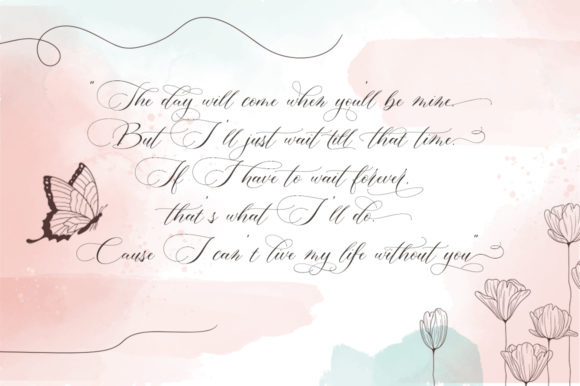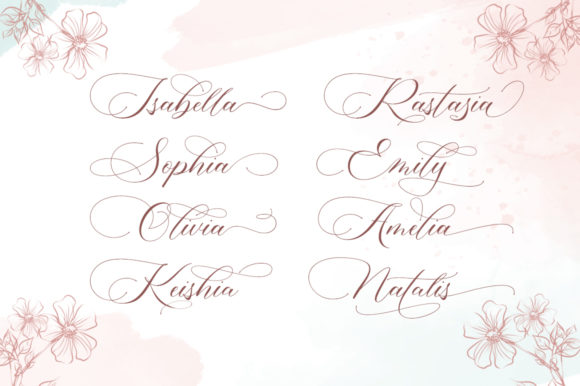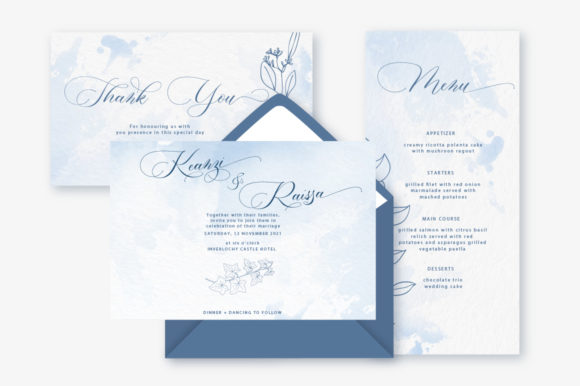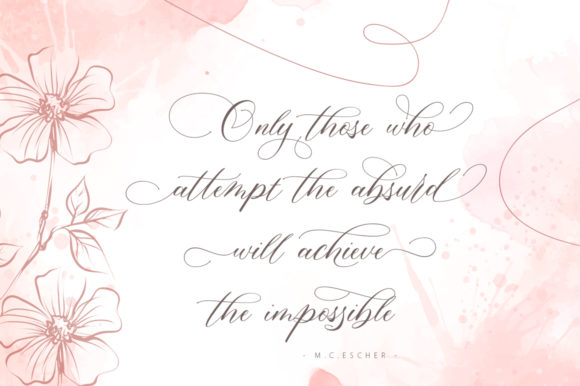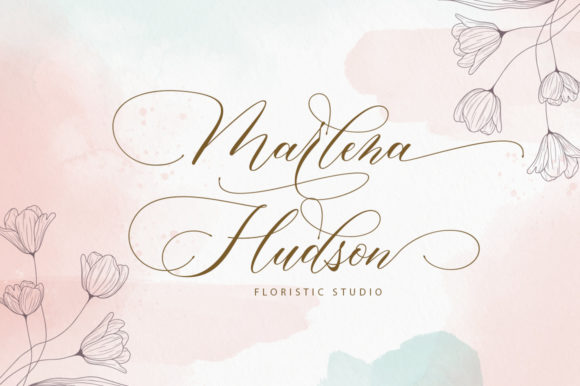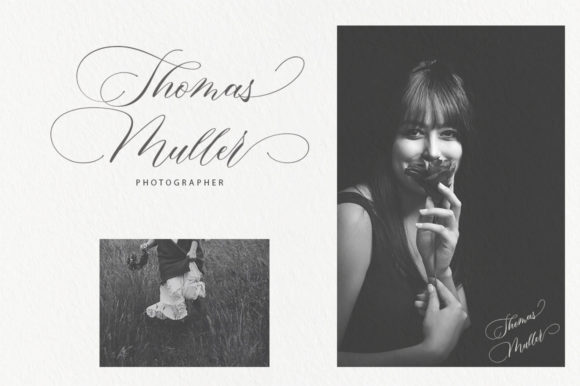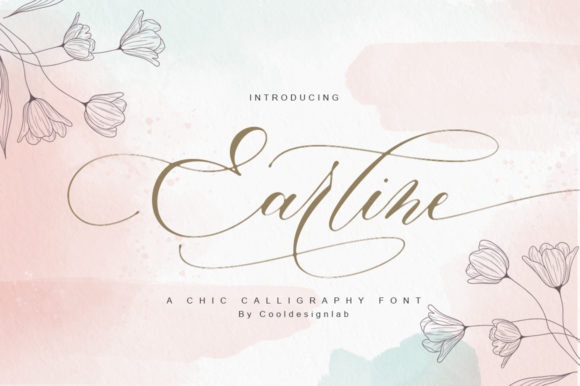
Discover the Elegance of Earline Font: A Delicate Handwritten Masterpiece
Are you a designer or crafter looking for a font that exudes elegance and sophistication? Look no further than Earline Font, a delicate and handwritten font that is sure to capture your heart. With its distinct and well-rounded letters, Earline is a masterpiece that can elevate your designs to new heights. In this article, we’ll explore the features and benefits of Earline Font, and how you can use it to create spectacular designs.
The Unique Characteristics of Earline Font
Earline Font is a handwritten font that boasts a unique and elegant style. Its letters are carefully crafted to be distinct and well-rounded, giving the font a soft and approachable feel. The font’s delicate nature makes it perfect for designs that require a touch of sophistication and refinement. Whether you’re creating a logo, branding materials, or social media graphics, Earline Font is sure to make a lasting impression.
The Versatility of Earline Font
One of the standout features of Earline Font is its incredible versatility. The font can be used in a wide range of design applications, from elegant wedding invitations to modern business cards. Its delicate nature also makes it perfect for use in children’s designs, such as baby shower invitations, kids’ party invitations, and more. Whether you’re a seasoned designer or a crafty DIY enthusiast, Earline Font is sure to become a staple in your design toolkit.
Benefits of Using Earline Font
So, why choose Earline Font for your design projects? Here are just a few benefits of using this beautiful font:
- Elegance and sophistication: Earline Font adds a touch of elegance and sophistication to any design, making it perfect for high-end branding and marketing materials.
- Versatility: The font’s delicate nature makes it suitable for use in a wide range of design applications, from formal to informal.
- Easy to read: Earline Font is clear and easy to read, making it perfect for use in body text and other long-form content.
- Unique and distinctive: Earline Font’s unique letterforms make it stand out from more traditional fonts, giving your designs a distinctive edge.
Tips for Using Earline Font
To get the most out of Earline Font, here are a few tips to keep in mind:
- Pair with bold fonts: Earline Font’s delicate nature makes it perfect for pairing with bold, contrasting fonts to create visual interest.
- Use in combination with images: The font’s elegant style makes it perfect for use in combination with beautiful images to create stunning visual designs.
- Experiment with colors: Earline Font looks great in a range of colors, from soft pastels to rich jewel tones. Experiment with different colors to find the perfect fit for your design.
Where to Use Earline Font
Earline Font is a versatile font that can be used in a wide range of design applications, including:
- Wedding invitations and stationery: Earline Font’s elegant style makes it perfect for use in wedding invitations, save-the-dates, and other wedding stationery.
- Branding and marketing materials: The font’s sophisticated nature makes it perfect for use in branding and marketing materials, such as business cards, brochures, and flyers.
- Social media graphics: Earline Font’s delicate nature makes it perfect for use in social media graphics, such as Instagram posts and Facebook graphics.
- Crafting and DIY projects: The font’s elegant style makes it perfect for use in crafting and DIY projects, such as handmade cards, gift tags, and more.
| Font Name | Earline Font |
| Author | Cooldesignlab |
In conclusion, Earline Font is a delicate and elegant handwritten font that is sure to capture your heart. With its distinct and well-rounded letters, Earline is a masterpiece that can elevate your designs to new heights. Whether you’re a seasoned designer or a crafty DIY enthusiast, Earline Font is a versatile and sophisticated font that is sure to become a staple in your design toolkit. So why wait? Fall in love with Earline Font and start creating spectacular designs today!